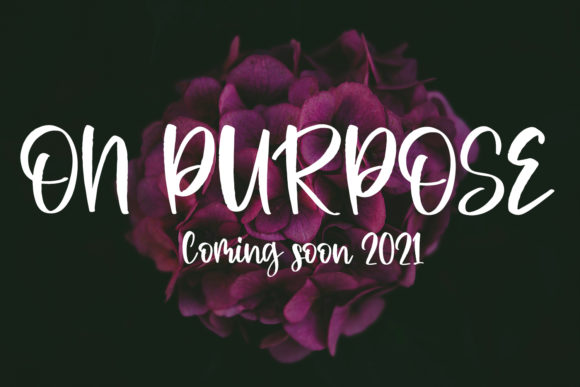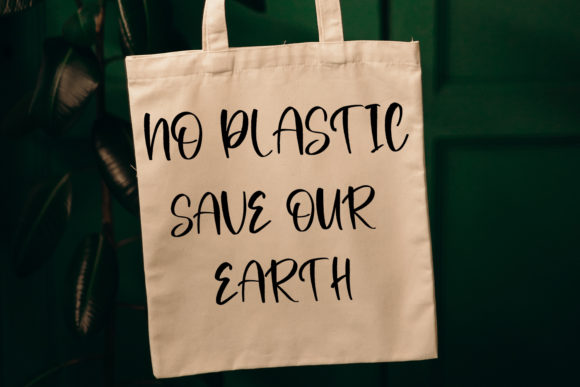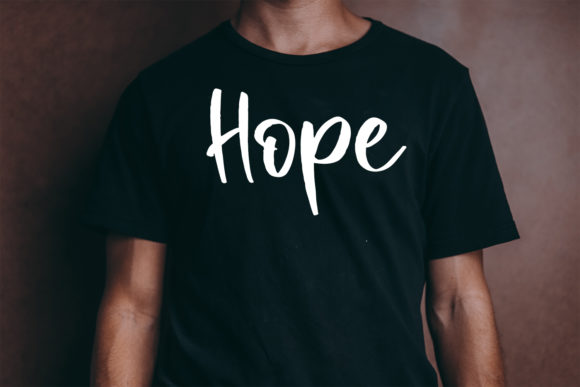
Introduction to Diamonds Font Font
Fonts play a crucial role in design, and the Diamonds Font font is a typeface that brings both character and versatility to any project. Whether you’re working on a branding project, a website, or a print design, the Diamonds Font font offers a unique style that can elevate your work.
Diamonds is a sweet and flowing handwritten font.
It looks stunning on wedding invitations, thank you cards, quotes, greeting cards, logos, business cards and every other design which needs a handwritten touch .
Key Features of Diamonds Font Font
Why Choose Diamonds Font Font?
The Diamonds Font font is more than just a typeface – it’s a design tool that helps you communicate your message with style and clarity. Its unique character set and versatile design make it suitable for a wide range of applications, from elegant invitations to bold headlines.
With its carefully crafted letterforms and balanced proportions, the Diamonds Font font ensures readability and visual appeal across all mediums.
What makes Diamonds Font font special?
The Diamonds Font font stands out with its unique design, exceptional readability, and versatility across various design applications.